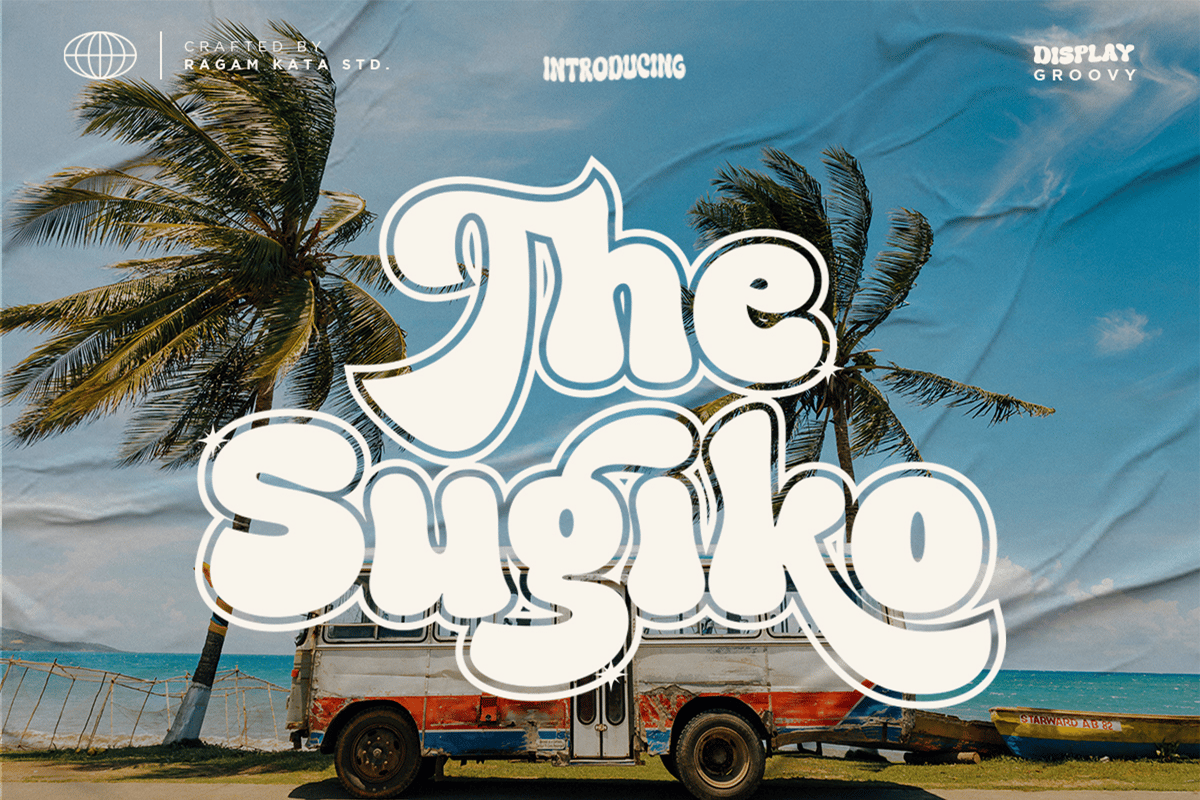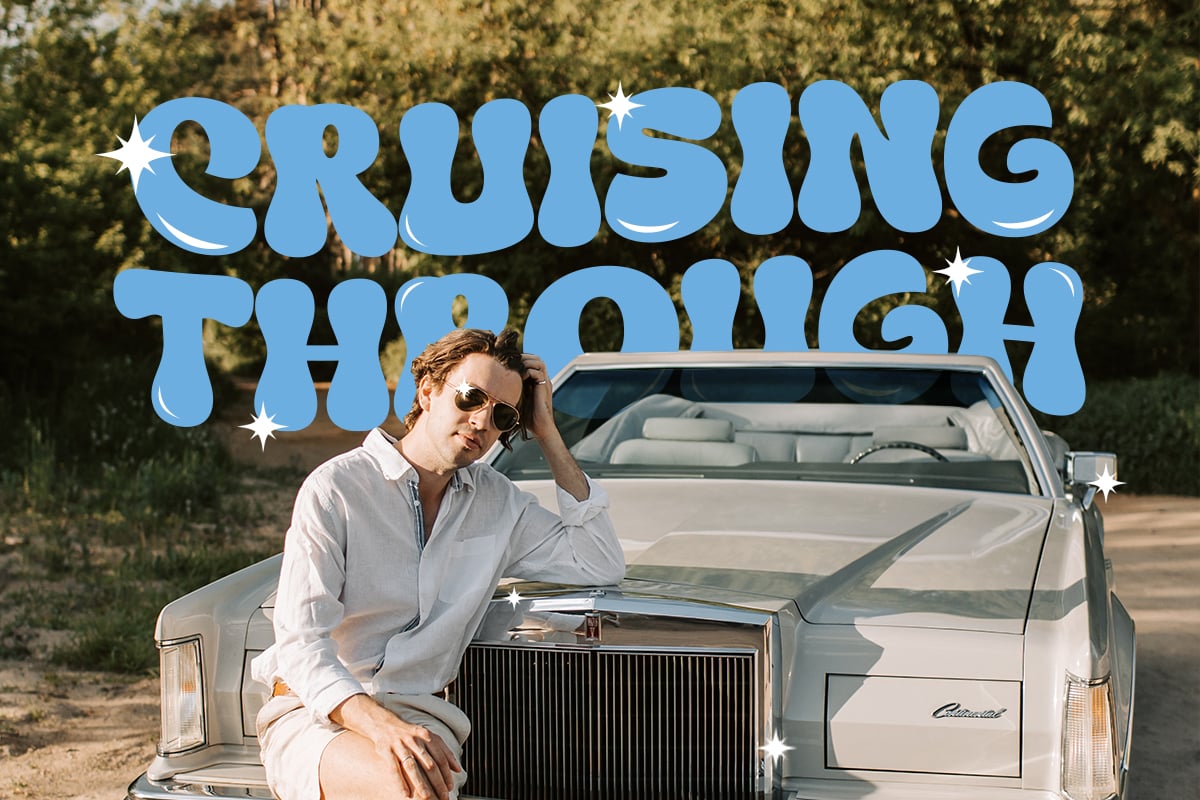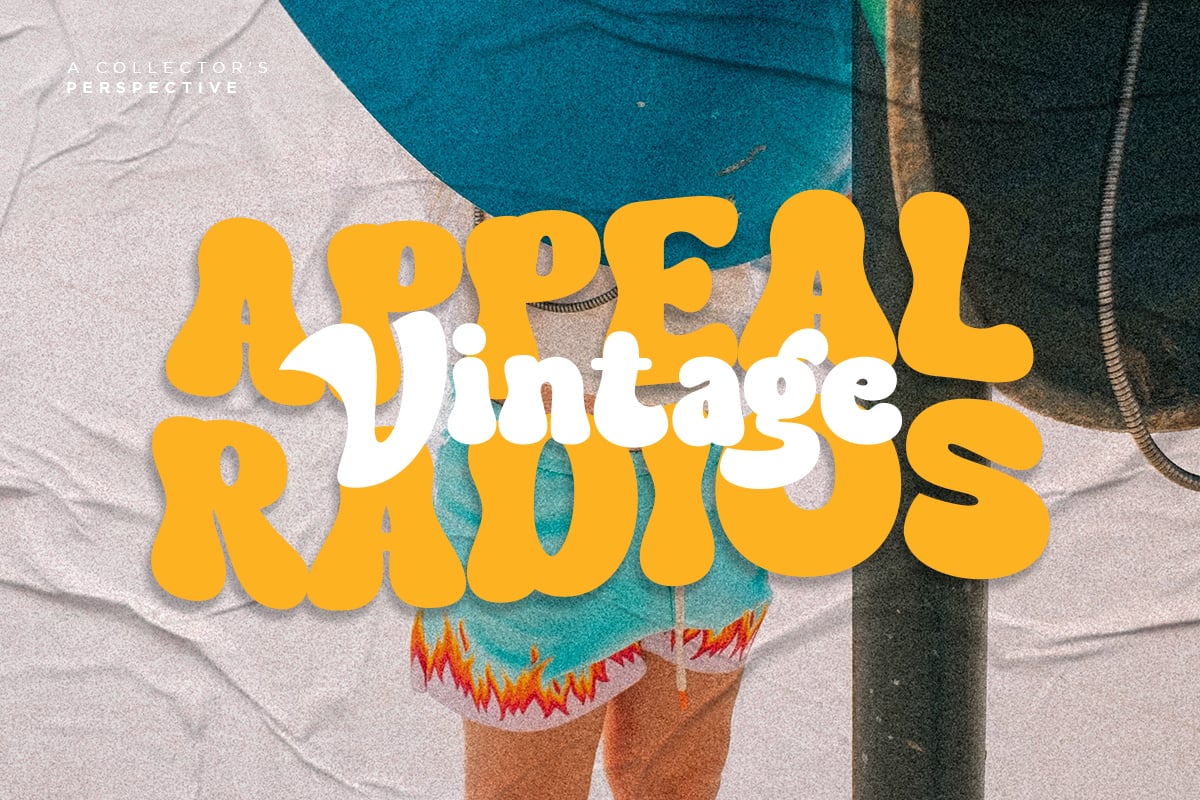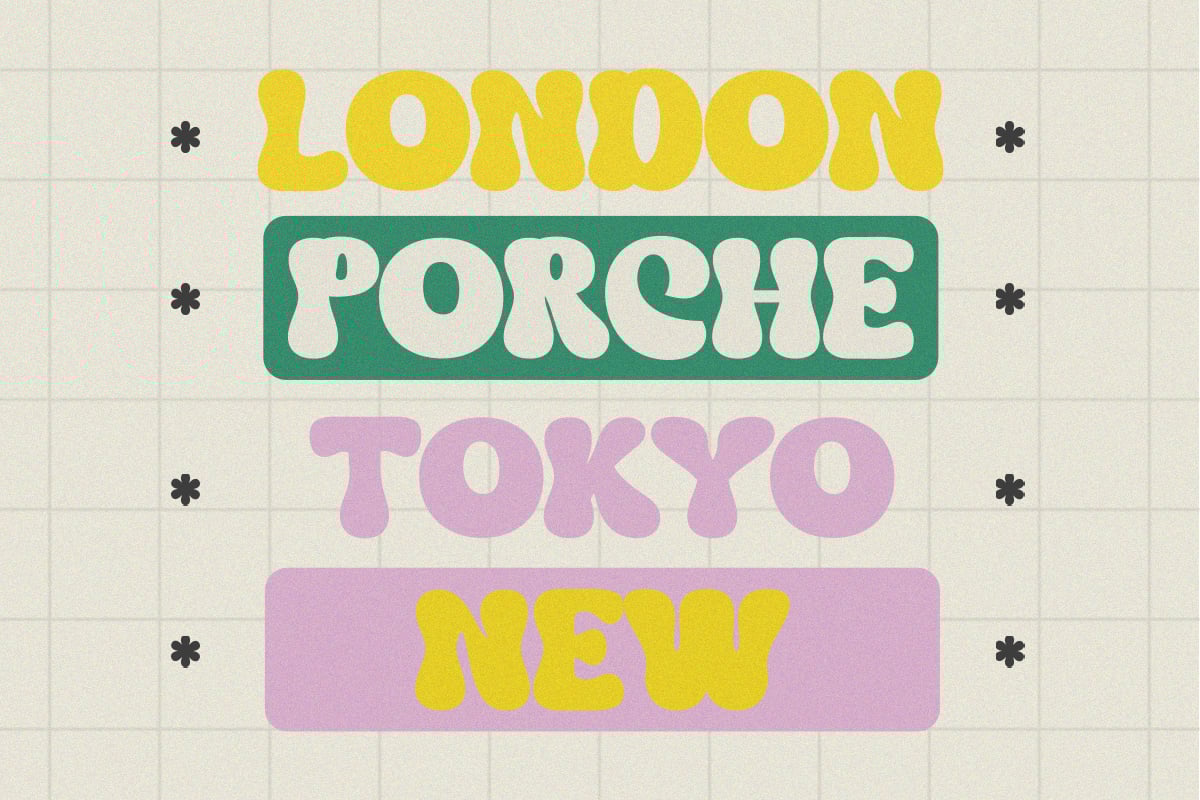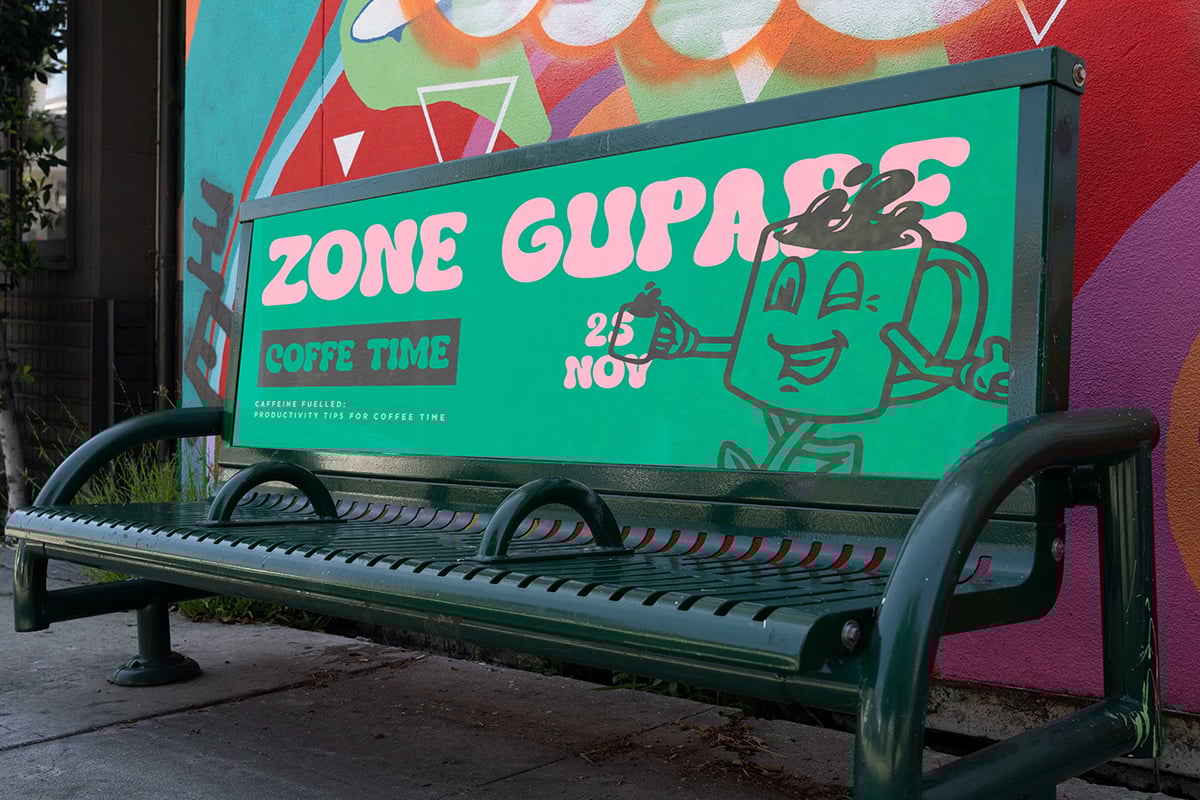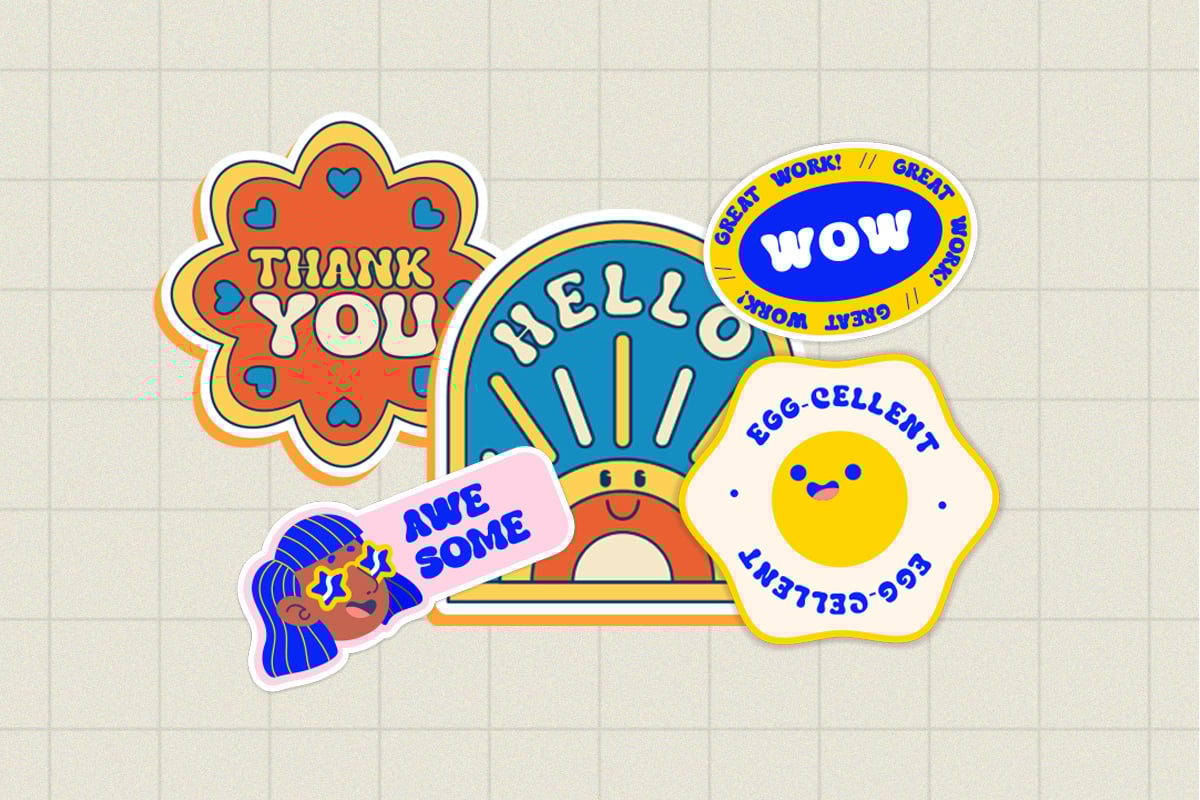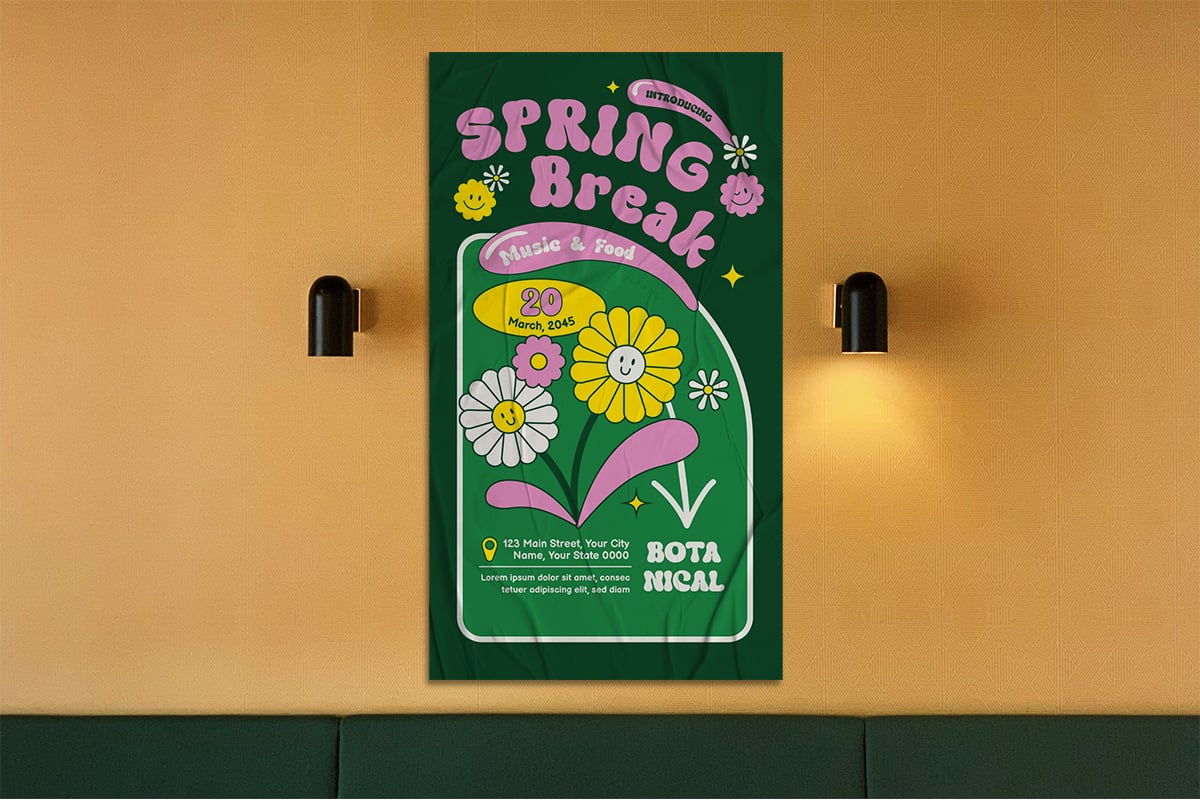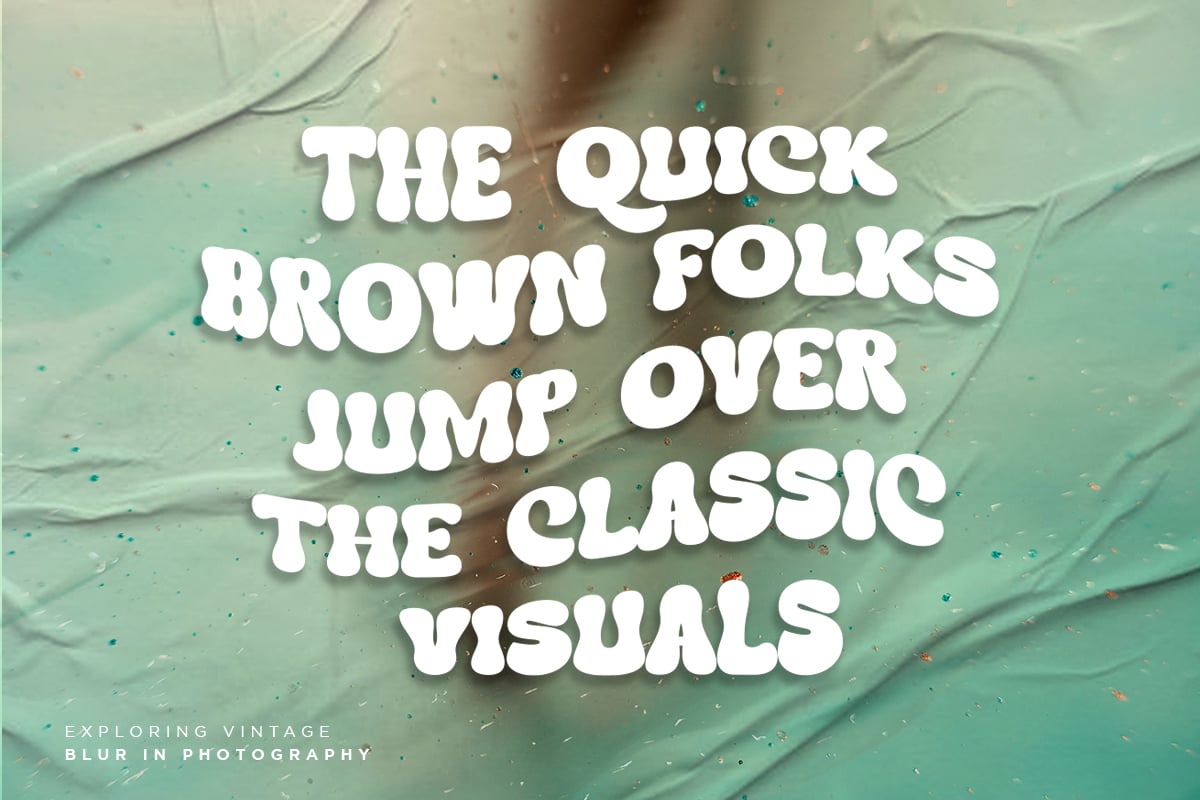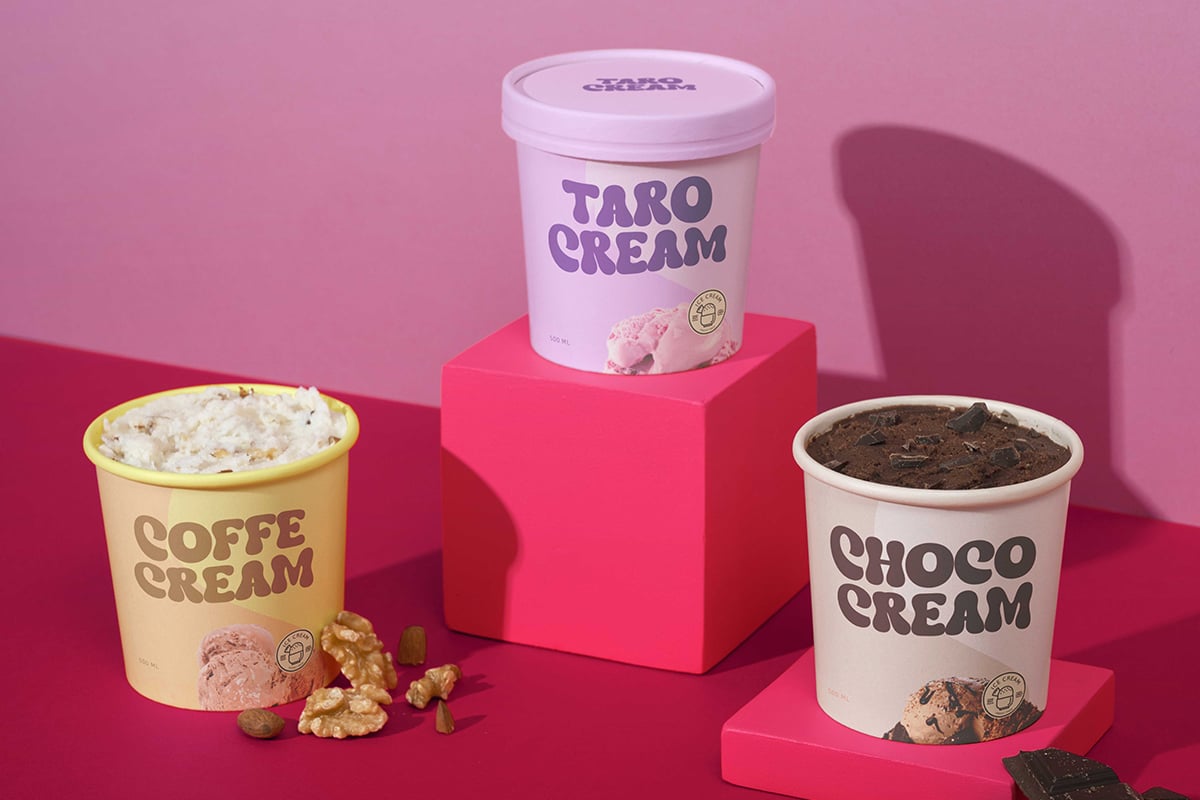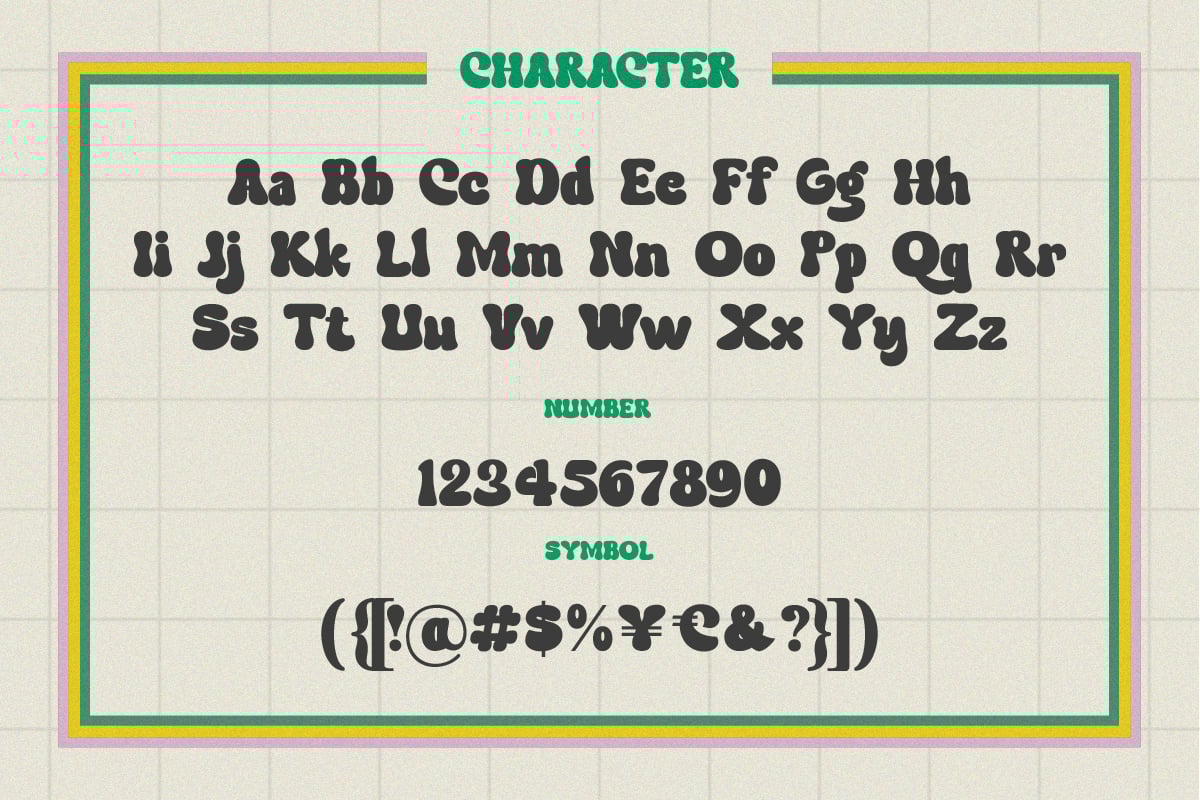
The Sugiko – Retro Groovy Font
Introducing The Sugiko – Your Passport to Groovy Retro Vibes!
With The Sugiko, you’ll transform your designs into groovy, retro masterpieces that demand attention. Whether you’re crafting a funky poster, a nostalgic logo, or a throwback-inspired website, this font adds the authentic vintage touch that’s currently dominating design trends.
- Ligatures & Alternates
- Letters, numbers, symbols, and punctuation